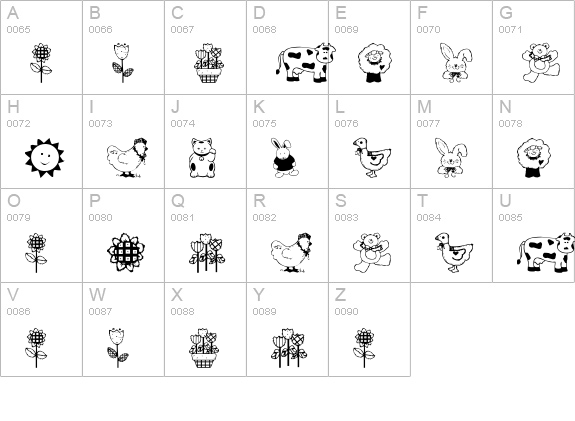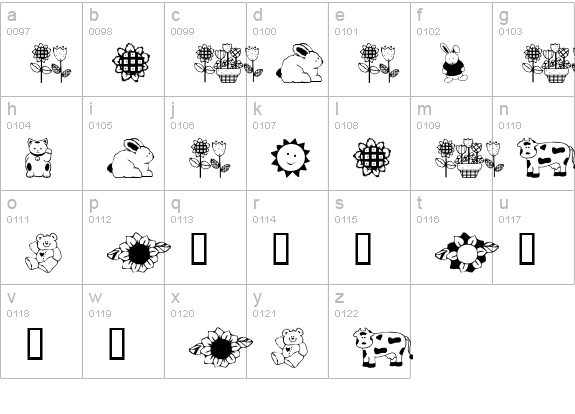
RMCountry Font Details
RMCountry font is a unique and stylish typeface that exudes a rustic charm reminiscent of the countryside. Its bold yet elegant design makes it perfect for a wide range of projects, from branding to packaging to social media graphics. With its distinct character and versatility, RMCountry font is sure to make your designs stand out. What's even better is that RMCountry font is completely free to download at FontsMarket.com. That's right, you can get your hands on this stunning font without spending a dime. So why wait? Add RMCountry font to your font collection today and let your creativity soar!